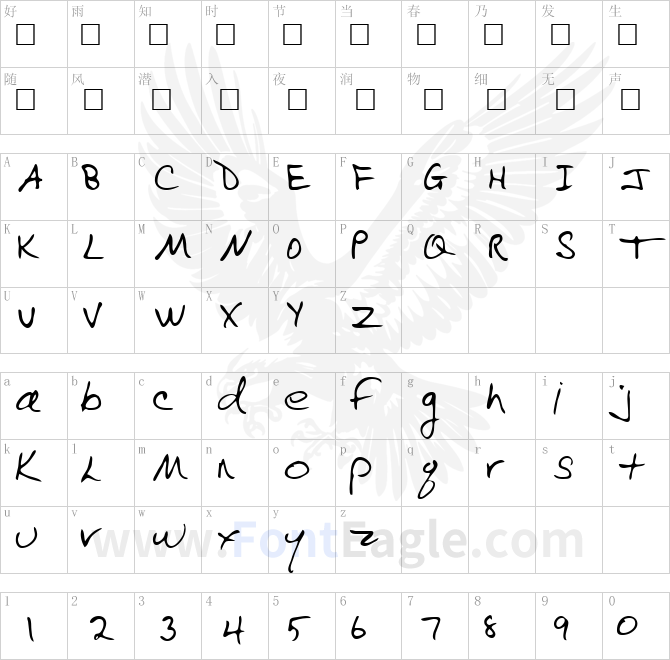
Rabin-Regular is a great font, widely used in graphic design, single-page menu design, poster design and other fields, and is deeply loved by designers.Rabin-Regular download.